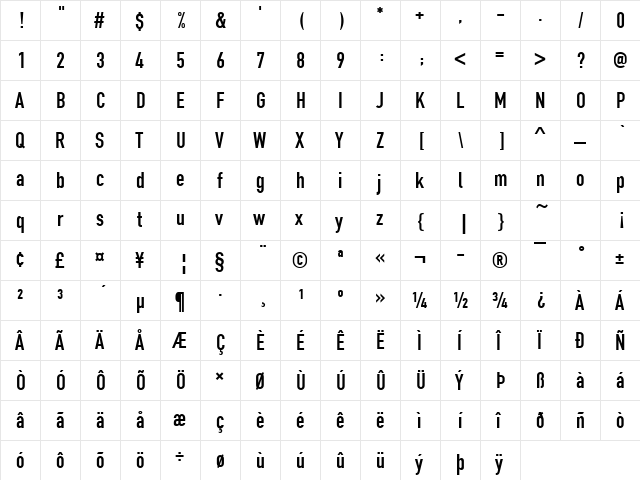
FetteEngD Regular Font Preview
FetteEngD Regular
FetteEngD Regular Font Details
Design Context for FetteEngD Typeface
FetteEngD is a composed and adaptable typeface that performs quietly and consistently across a wide range of design contexts.